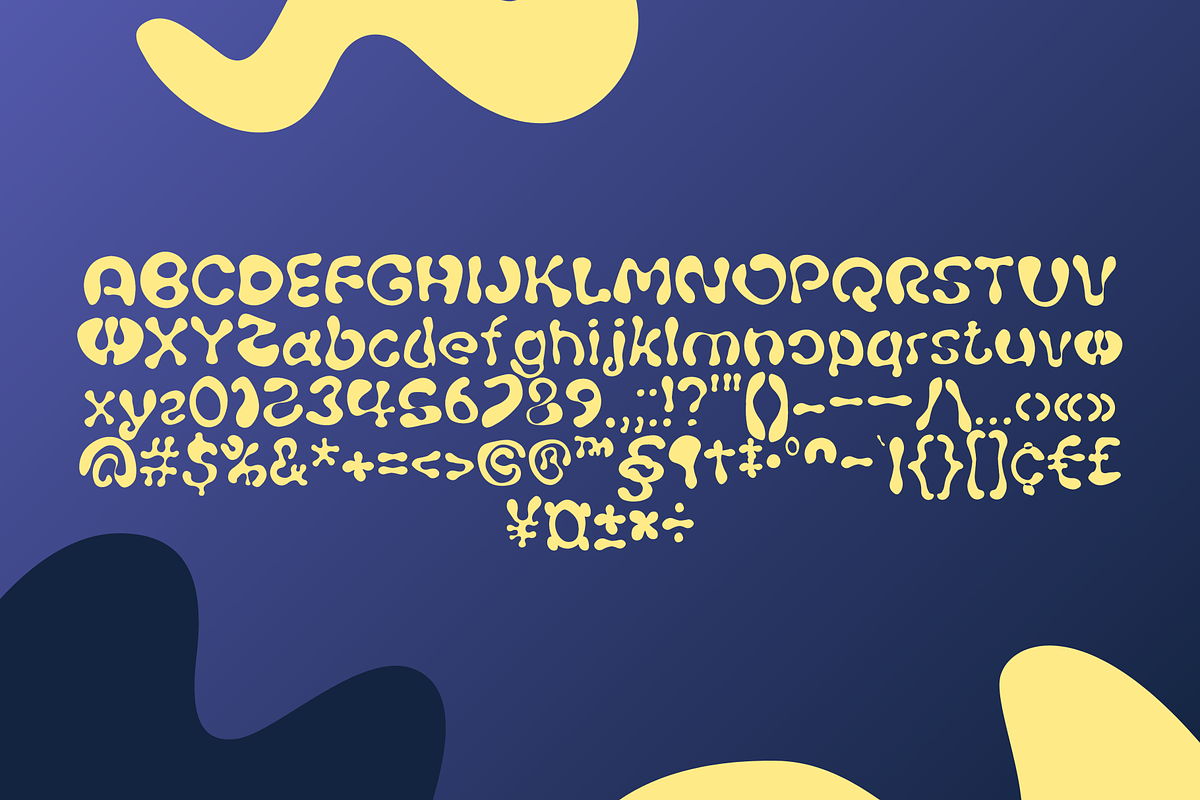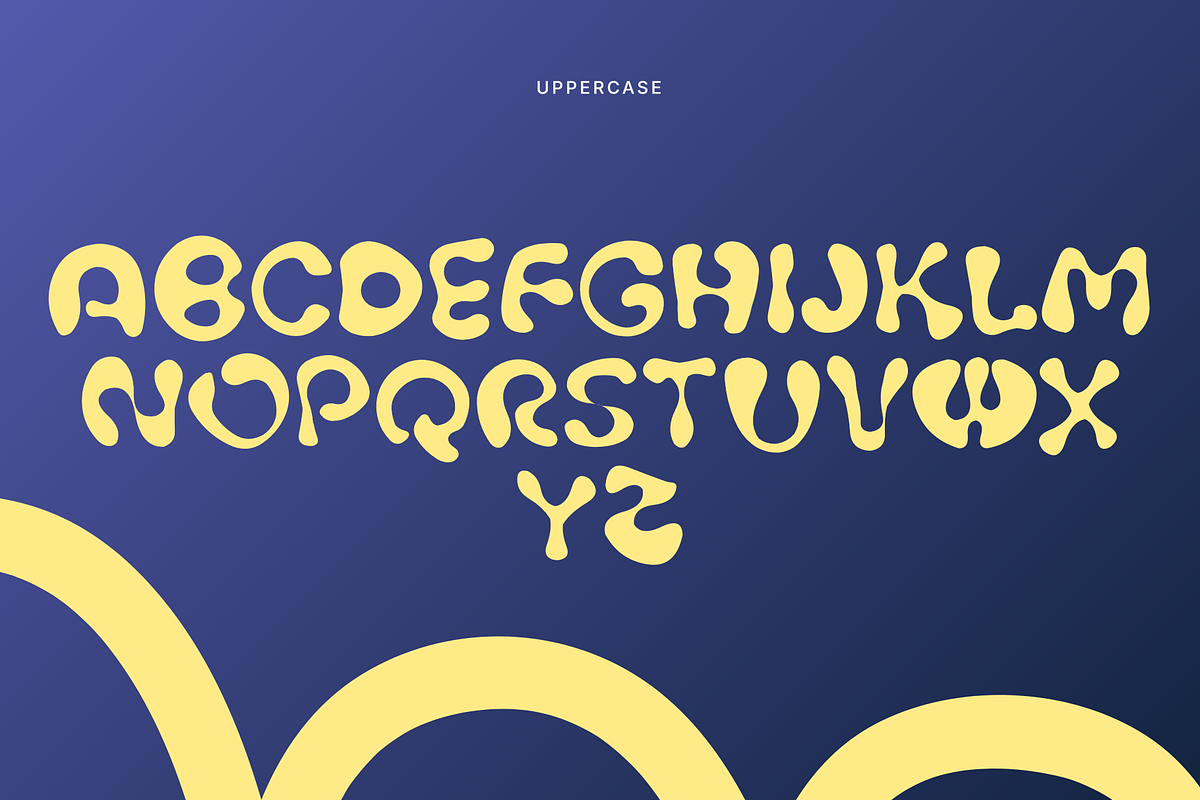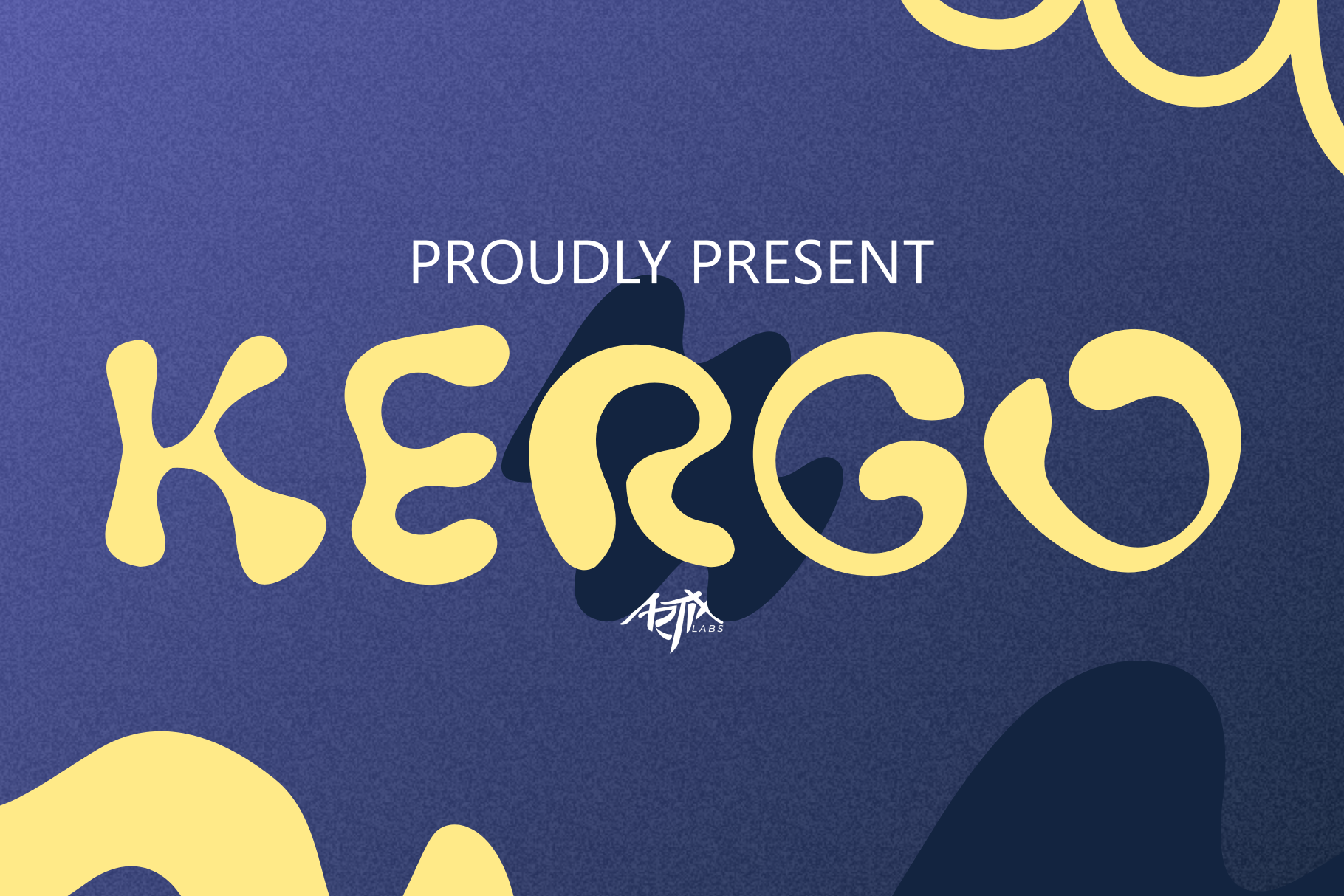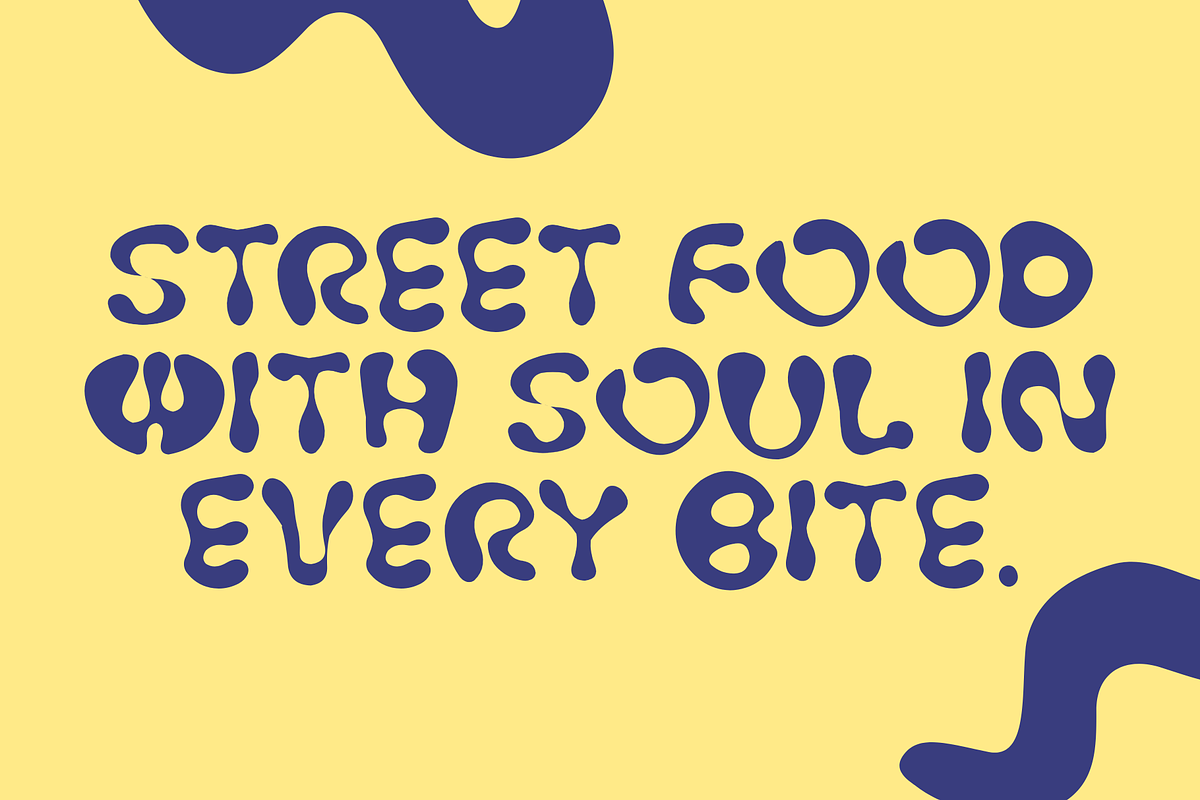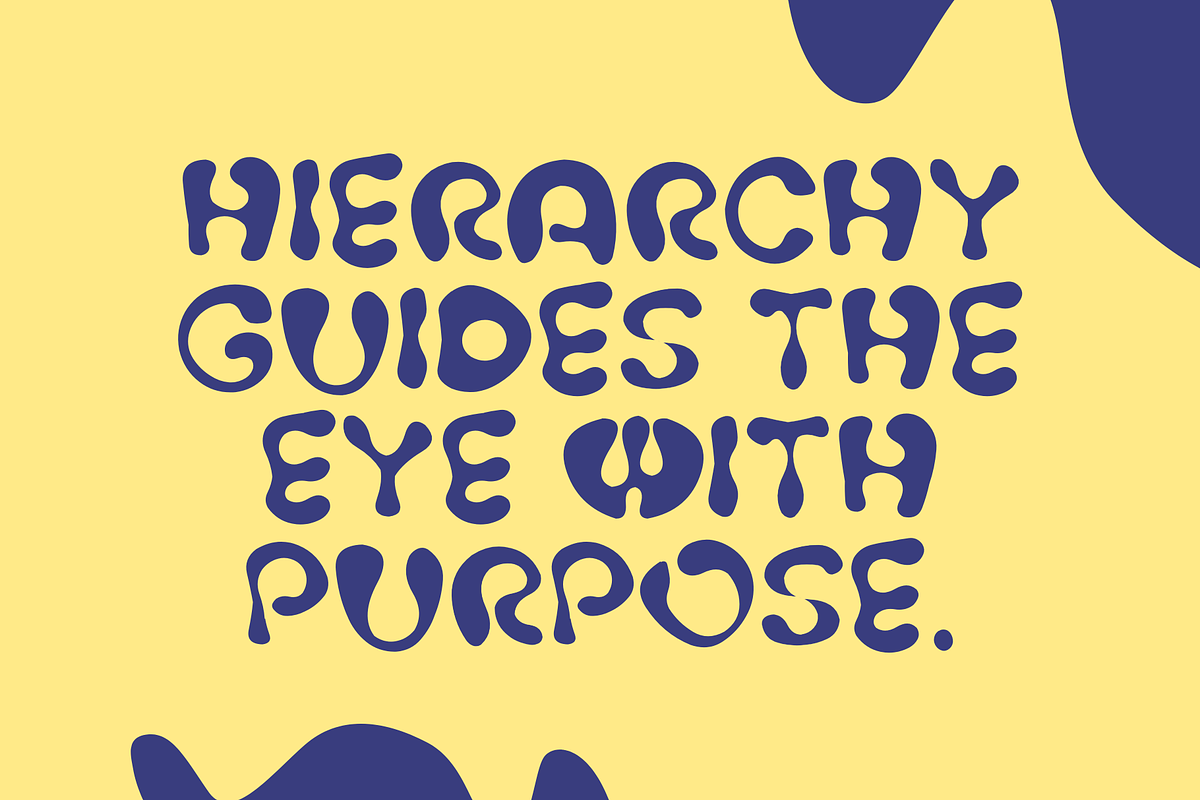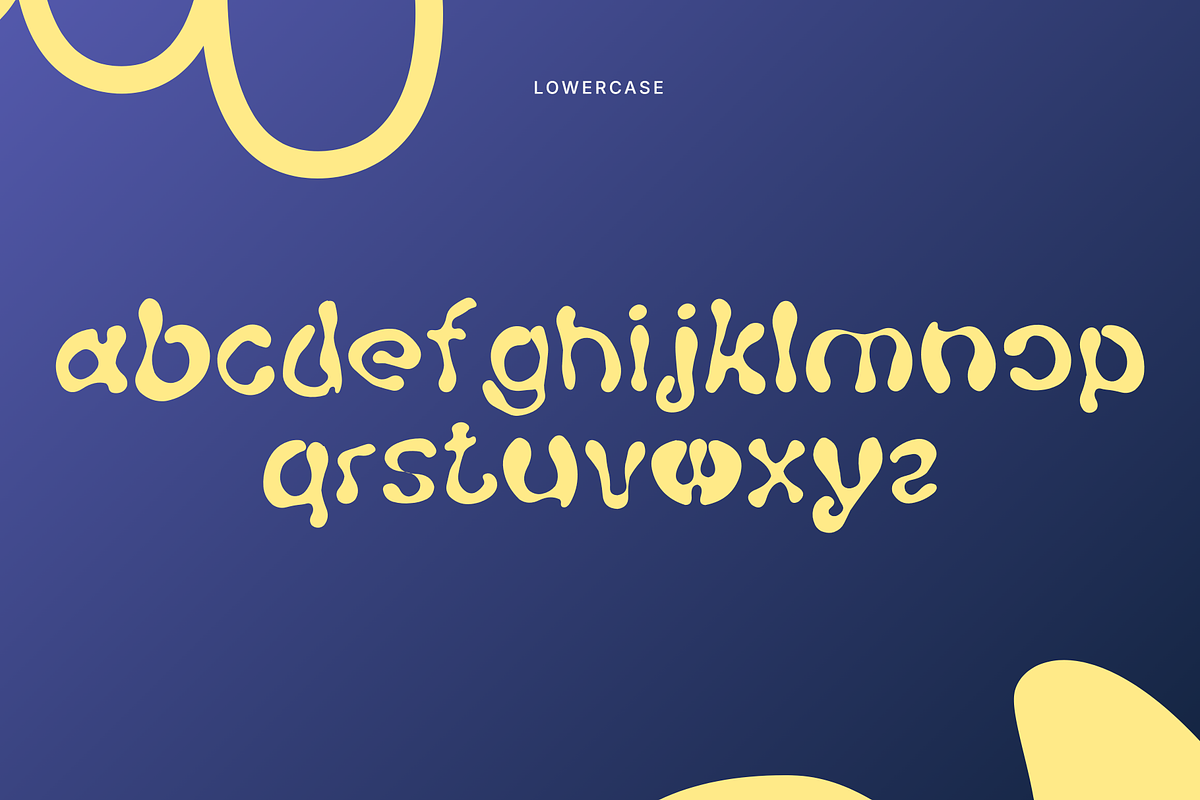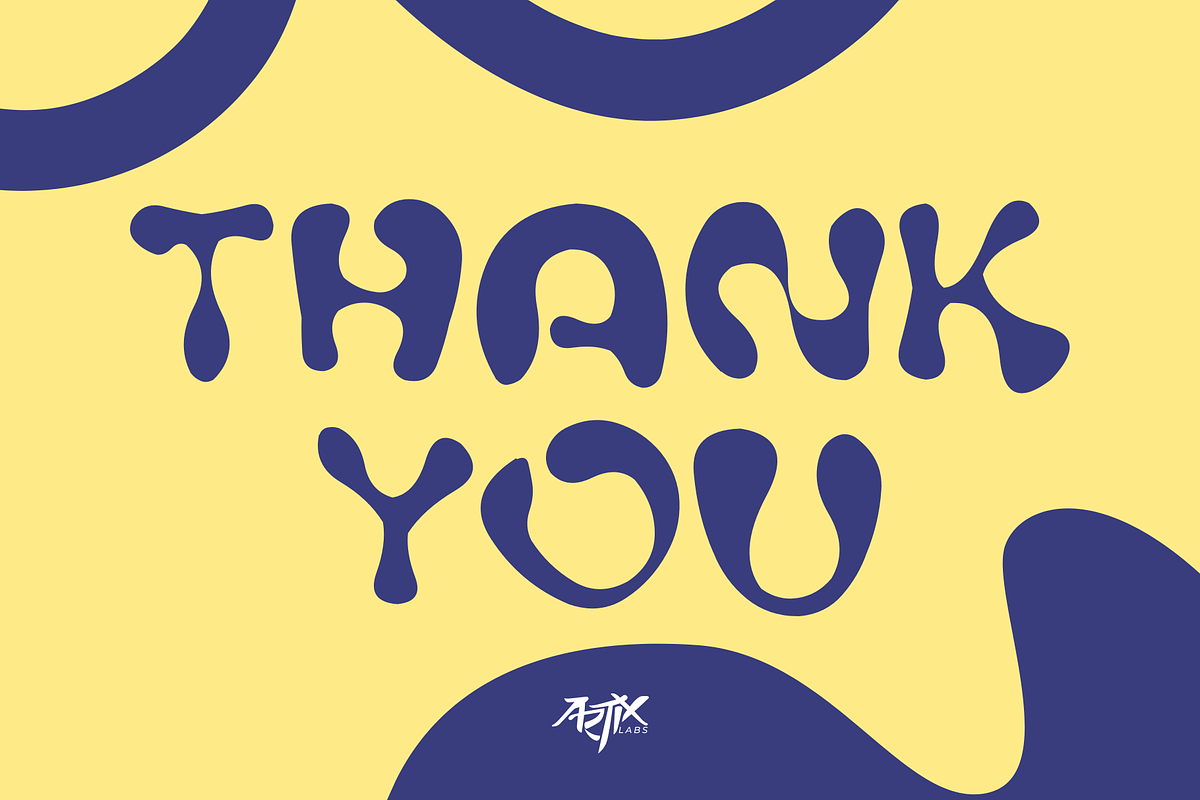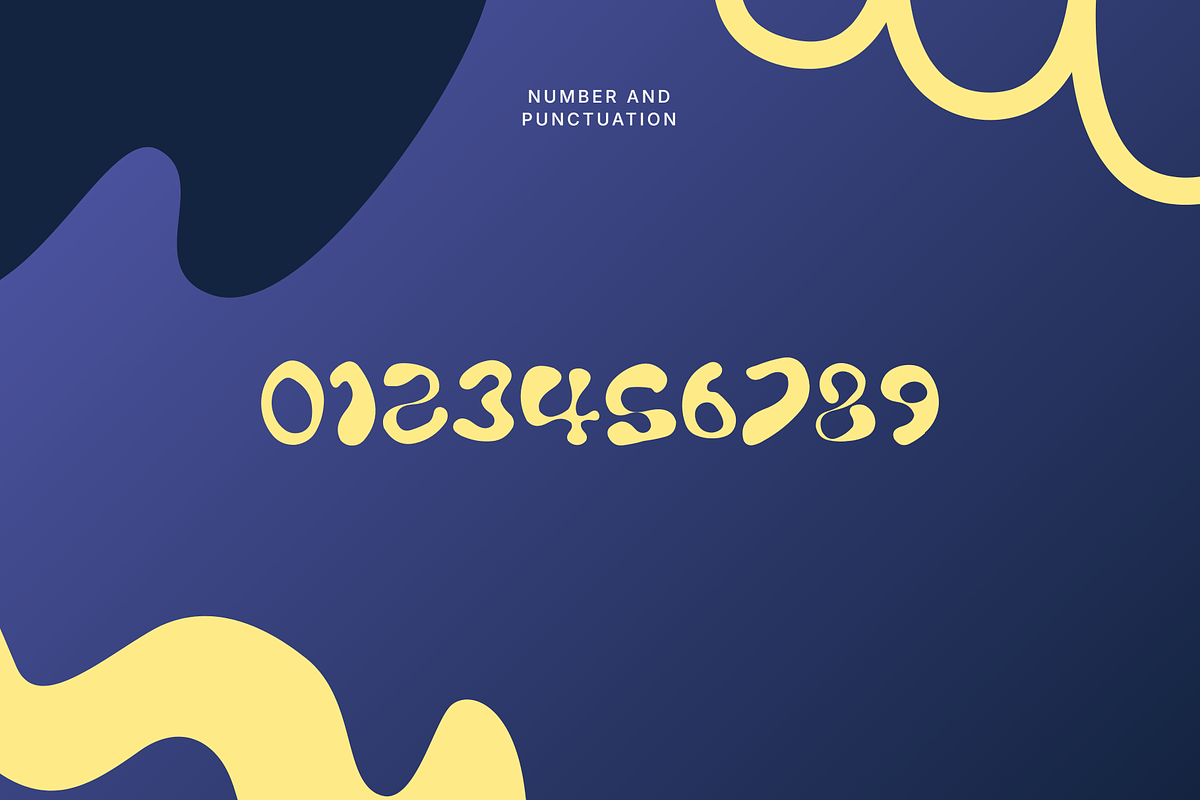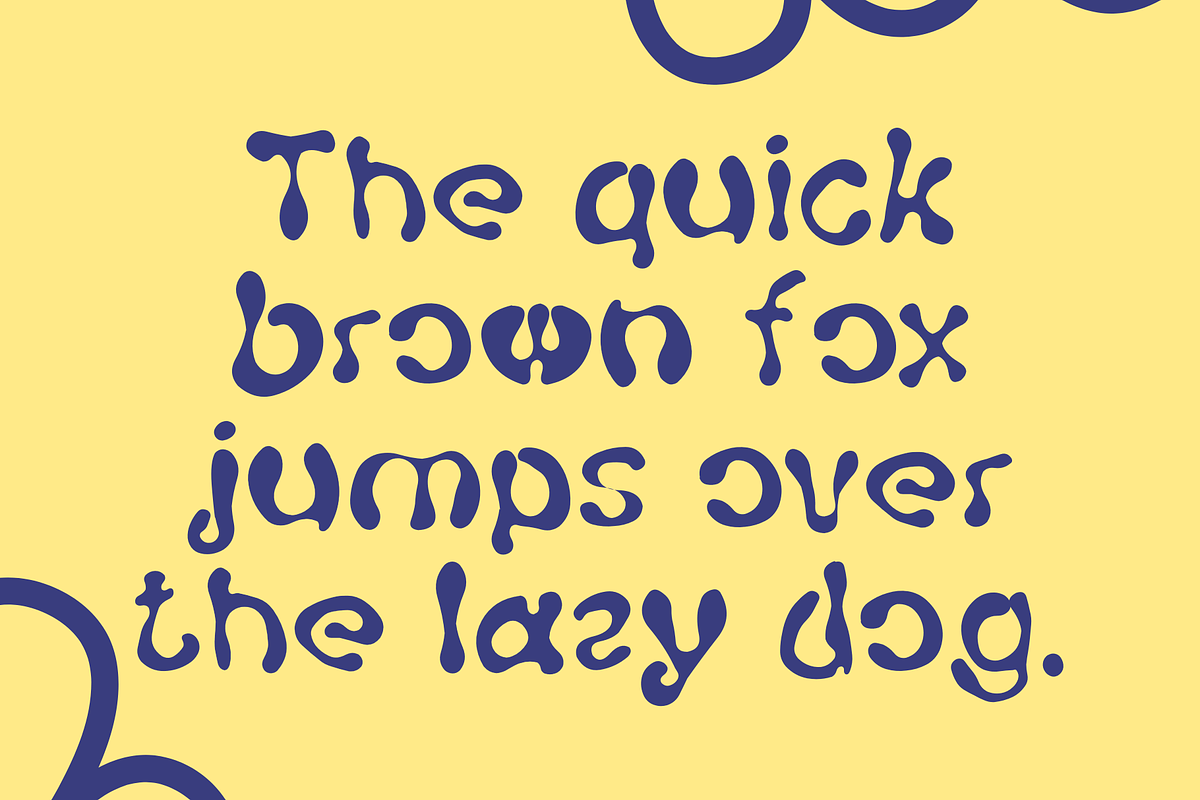
Kergo Groovy Display Font Bold Retro
Introducing Kergo - Groovy Retro Font
This Font Template contains Urban, Street, Liar, Expressive, Creative, Professional and Unique Concept.
\- Uppercase & Lowercase letters
\- Numbering and Punctuations